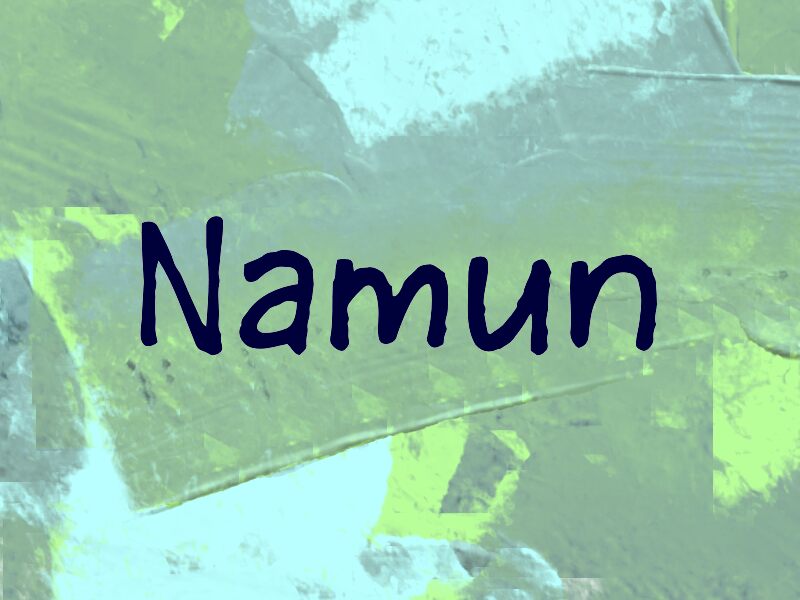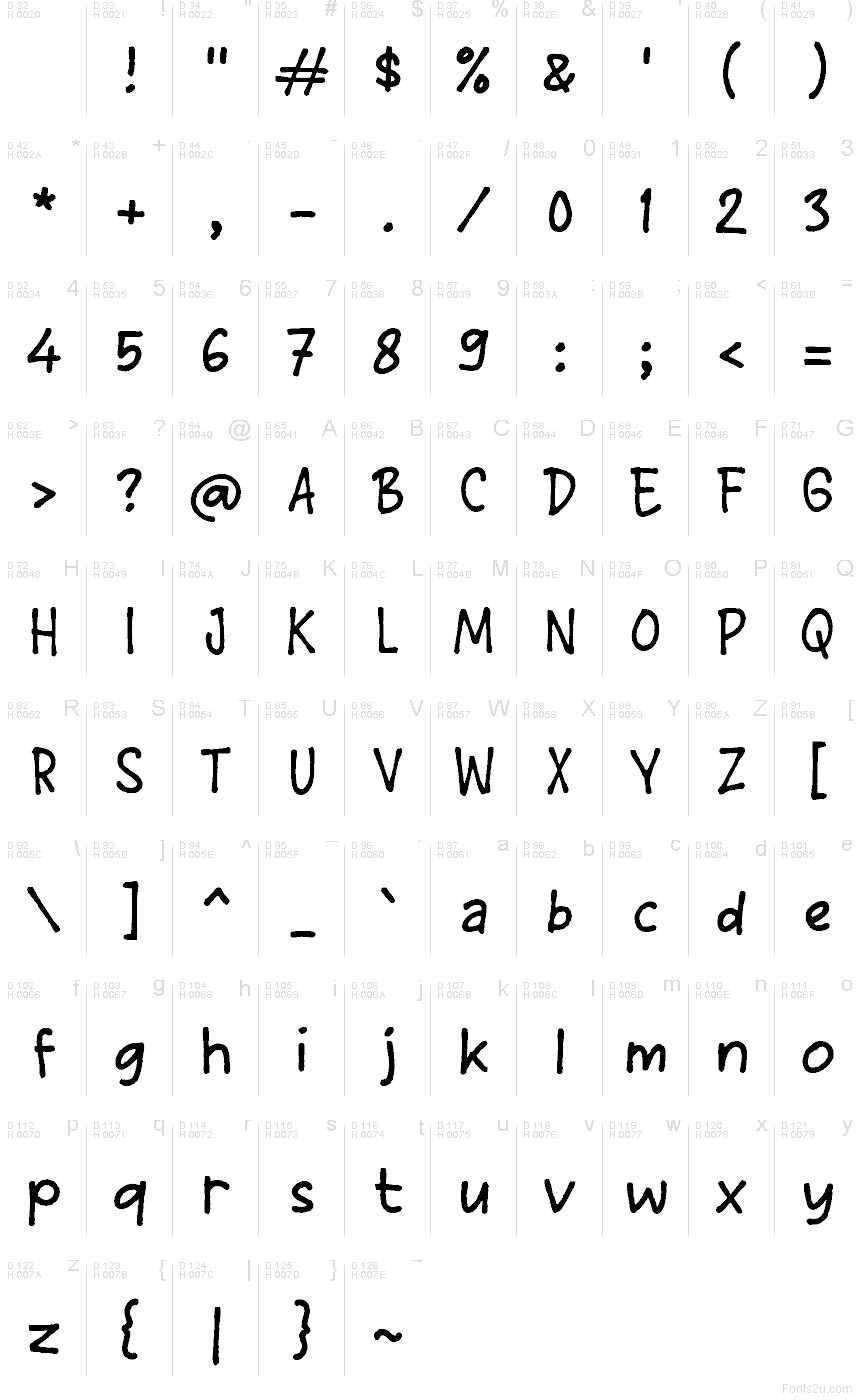
Namun
Namun font by wepfont.com is a free handwritten typeface with an inky, slightly rough texture that feels like it was brushed onto the page in one confident take. The letters are relaxed and rounded, with just enough wobble and dark edges to feel human, but they still hold a clear, even rhythm that keeps text easy to read. It has a friendly, informal voice that suggests quick notes, sketchbook captions, and hand-painted signs.
Using Namun, this free font shines on posters, quote graphics, packaging, social media visuals, café menus, event flyers, and children’s book titles where you want warmth without losing clarity. Its bold, compact shapes also work beautifully for logos that need a casual, approachable edge. For a simple pairing, use Namun for headings and combine it with a clean sans serif for body text to let its handmade character stand out.